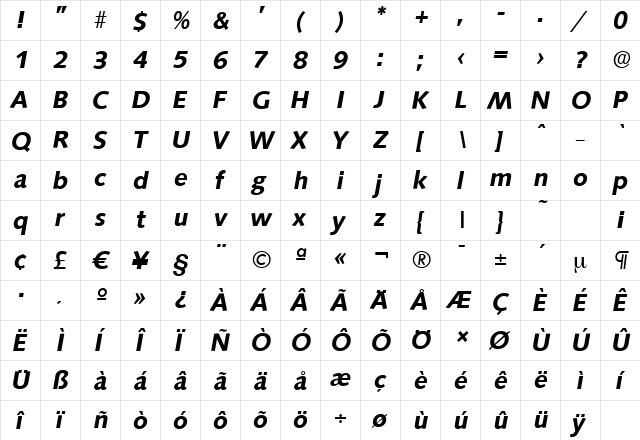
SaxonySerial BoldItalic Font Preview
Design Context for SaxonySerial Typeface
SaxonySerial offers clean, dependable letterforms without strong stylistic allegiance, making it a practical choice for designers who need flexibility. The dynamic lean of this cut emphasises speed and emphasis in any layout. The heavy weight commands attention and anchors typographic hierarchies.
Pro Tip: Try SaxonySerial for annotation and caption copy alongside an upright companion — the contrast in angle creates a dynamic but ordered typographic system.